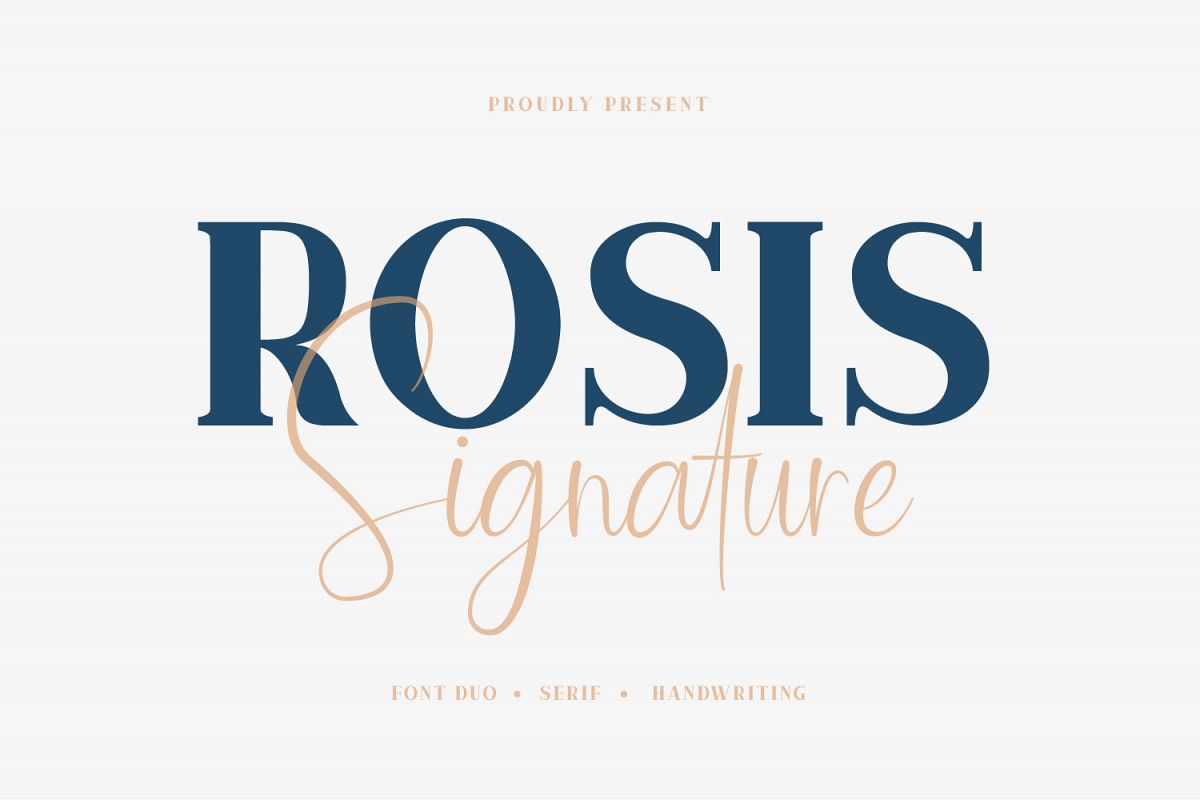
Rosis & Ballroom
Rosis
Say Hello to the latest Font from Sabrcreative STD with the
duo Font style "Rosis & Ballroom". With a combination of Serif
fonts and Handwriting fonts, it is perfect for logos, posters, wedding
invitations, blog posts, social media, and more.